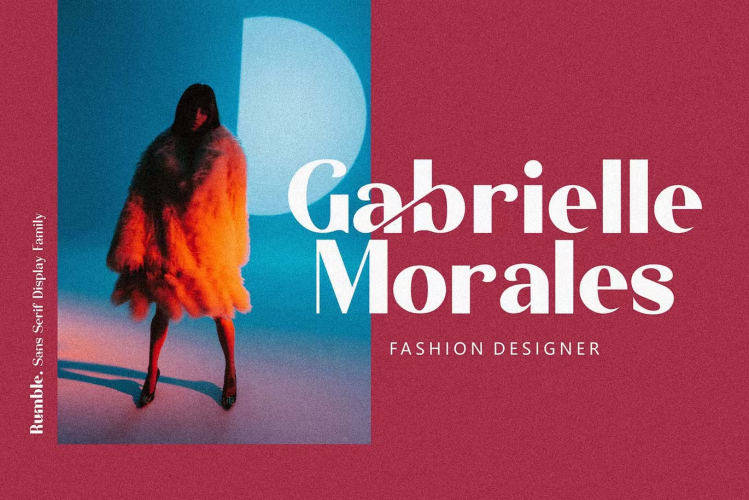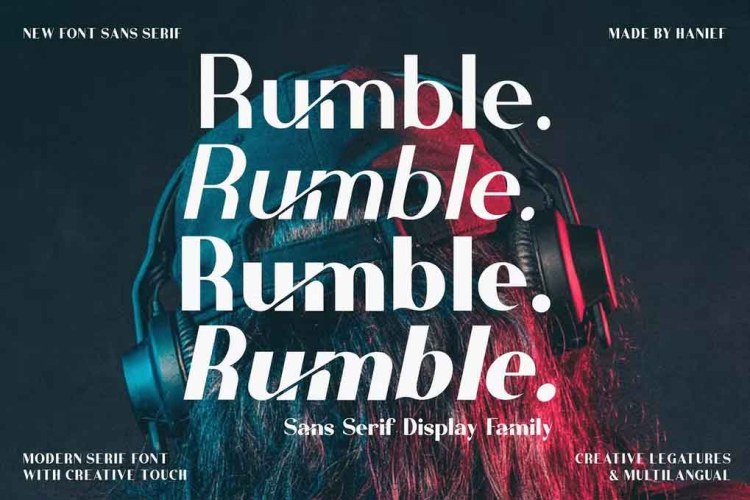
Rumble Elegant Font
Rumble sans serif. Combines elegant in letters, making this font look exclusive and elegant. With high letters display and thin in the anatomy of each letter. Rumble is…
Rumble sans serif. Combines elegant in letters, making this font look exclusive and elegant. With high letters display and thin in the anatomy of each letter. Rumble is a gorgeous sans-serif typeface that is both classically elegant and inherently modern. Create beautiful wedding invitations, use it as an elegant solution for your next magazine layout, or choose Rumble for any graphics that require a Elegant look with a vintage flair.. Rumble is based on classic letterforms for publishing and display graphics, so you can give your text a classic, elegant feel with Rumble clean.
Create something beautiful today with Rumble.
Where Rumble Elegant Font works best
Rumble Elegant Font stays legible at small sizes, which makes it a strong choice for navigation, buttons and dashboards in web design and app interfaces.
Clean sans serifs like Rumble Elegant Font are the default language of SaaS, fintech and product branding.
What is Rumble Elegant Font good for?
Rumble Elegant Font is a Sans Serif Fonts typeface tagged Classic, Display, Elegant, Modern. It works well for headlines, logos, posters, social media graphics and branding projects that need a distinctive sans serif fonts look.